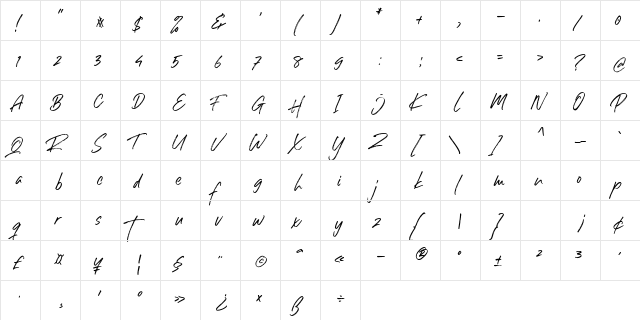
Right Gilligant Regular
Design Context for Right Gilligant Typeface
Right Gilligant is a composed and adaptable typeface that performs quietly and consistently across a wide range of design contexts.
Pro Tip: Use Right Gilligant in both headline and body roles to test its range before committing to a single application.